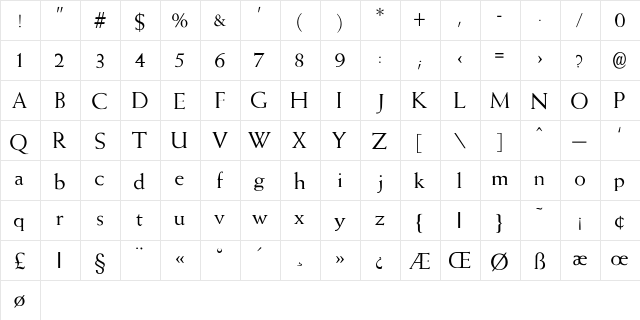
Weiss-Normal Regular
Design Context for Weiss-Normal Typeface
Weiss-Normal is a composed and adaptable typeface that performs quietly and consistently across a wide range of design contexts.